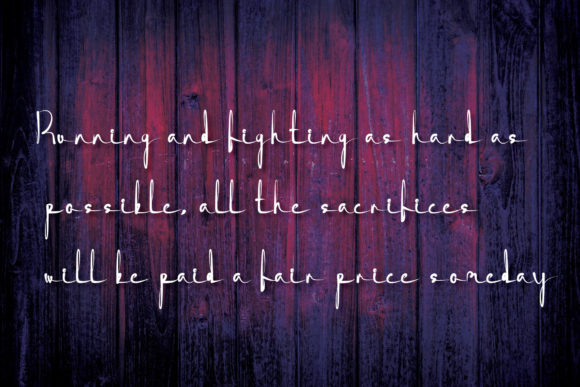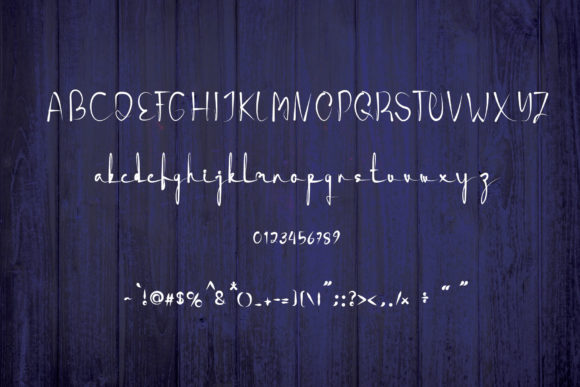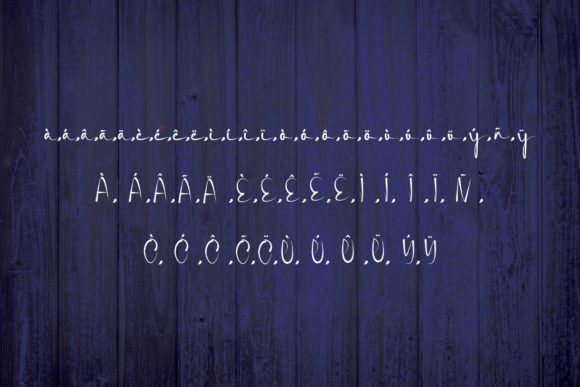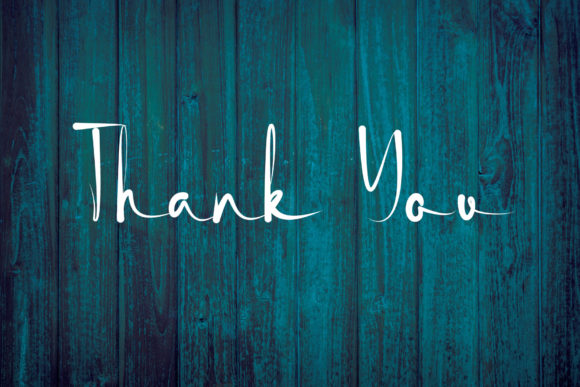
New Design Font
About New Design Font
New Design is a sophisticated and refined handwritten font that exudes a sense of style and elegance. With its clean, thin, and smooth lines, this font adds a touch of modernity and grace to any design project you choose to incorporate it into.
The sleek and streamlined appearance of New Design makes it a versatile choice for a wide range of creative endeavors. Whether you’re designing logos, creating branding materials, crafting social media posts, or working on any other design project, New Design’s delicate and polished aesthetic will elevate your work to a new level of sophistication.
In logo design, New Design can help convey a sense of professionalism and contemporary appeal. Its clean and smooth strokes create a harmonious balance, making it suitable for a variety of industries and businesses. Whether you’re designing for a fashion brand, a beauty salon, or a modern tech startup, New Design’s stylish and delicate look adds an air of refinement to your logo.
For branding materials, New Design brings a sense of elegance and modernity to your identity. Whether it’s on business cards, letterheads, or packaging, the font’s thin and clean lines create a harmonious and pleasing visual experience. The font’s smooth vibe enhances the overall impression of your brand, making it memorable and visually appealing.
Social media posts designed with New Design capture attention with their sophisticated and minimalist aesthetic. Whether you’re sharing inspirational quotes, promoting products, or engaging with your audience, the font’s clean and delicate appearance ensures that your message is conveyed clearly and beautifully.
In addition to its stylish exterior, New Design maintains readability and legibility, ensuring that your content remains easily accessible to your audience. Its versatility and timeless appeal make it a hit for a wide range of design applications, whether it’s digital or print media.
Overall, New Design is a stylish and delicate handwritten font that brings a modern and refined touch to your design projects. Its clean, thin, and smooth vibe adds a sense of elegance and sophistication, making it a versatile choice for logos, branding, social media, and beyond.